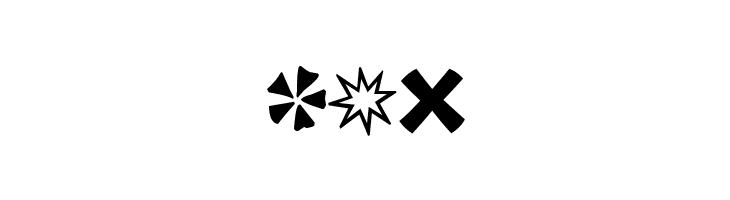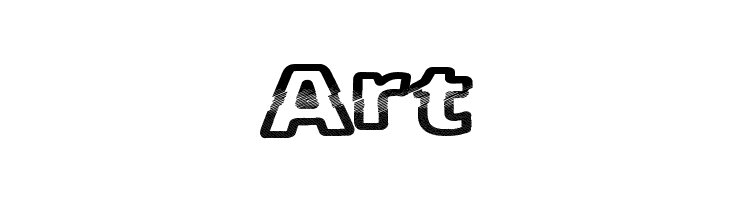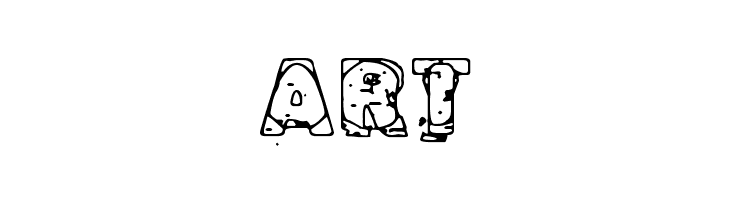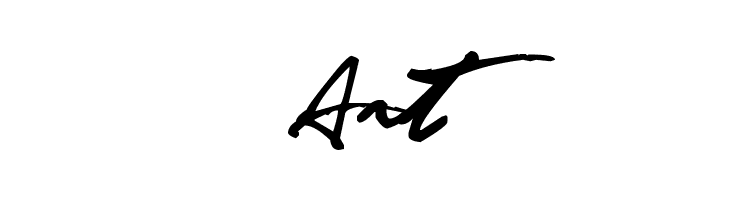
A creative and eclectic display typeface with diverse styles and textures.
A playful, bold font with rounded, hand-drawn characters.
A playful, bold font with rounded, bubbly characters ideal for fun projects.
A playful, bold font with rounded, hand-drawn characters.
A playful, handwritten font with uneven strokes and a casual style.
A playful, hand-drawn font with irregular strokes and a whimsical style.
A playful, handwritten font with a casual and friendly appearance.
A playful, hand-drawn font with bold, rounded characters.
A playful, hand-drawn font with a whimsical and informal style.
A decorative font resembling tree branches with leaves, offering a natural and whimsical style.
A decorative serif font with elegant curves and modern flair.
An ornate, decorative font with intricate floral embellishments.
A distressed, grunge-style font with a textured, vintage appearance.
A playful, bubbly font with a hand-drawn, whimsical style.
A bold, playful font with unique geometric shapes and a modern artistic style.
A lively and elegant script font with flowing cursive letters.
A bold, playful font with a unique claw-like design.
A playful, decorative font with bold, swirling patterns.
A bold, geometric font with futuristic cut-out shapes.
A bold, geometric font with a futuristic, outlined style.
A bold, playful icon font with humorous pictograms in rounded squares.
A bold, cartoonish font with a playful, three-dimensional effect.